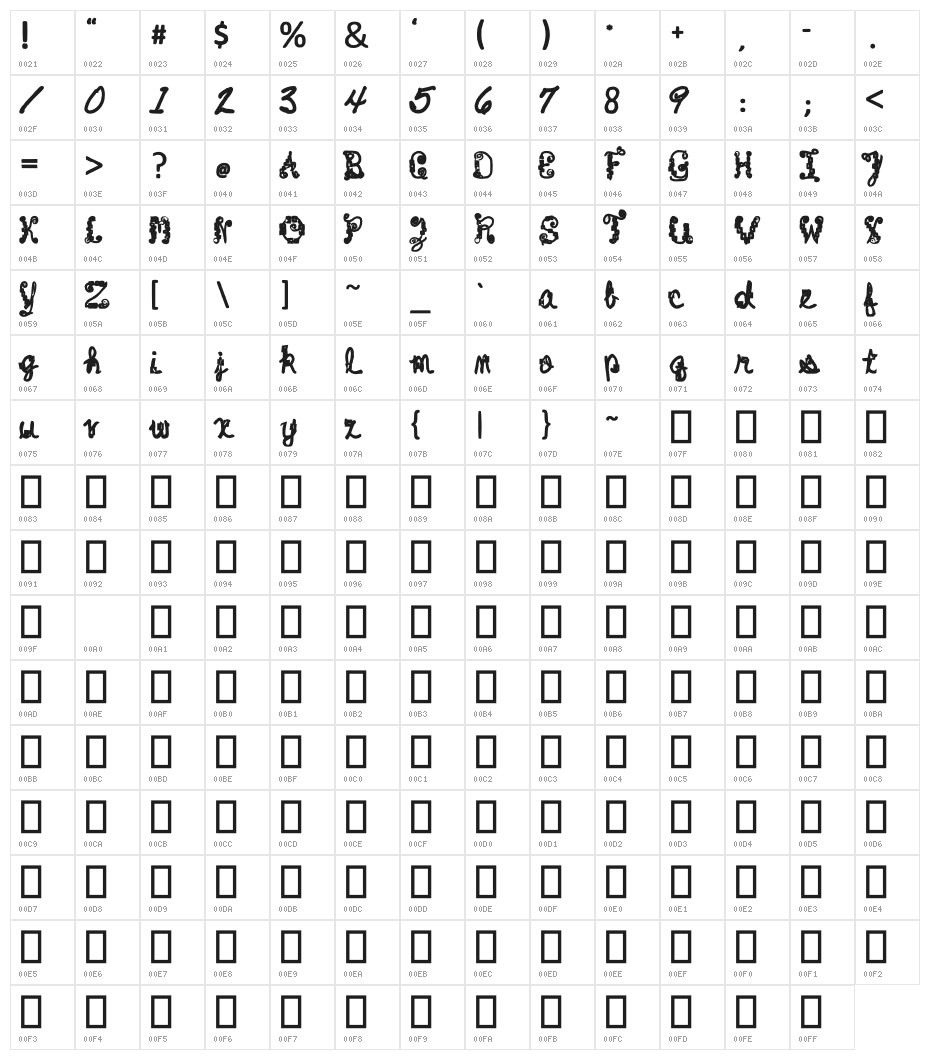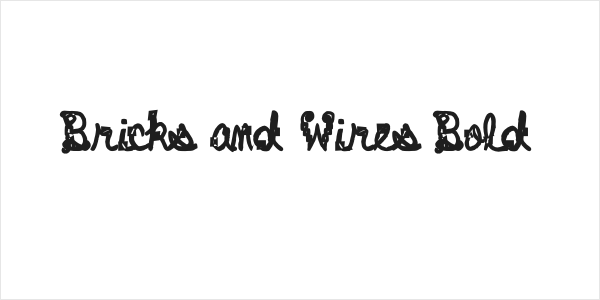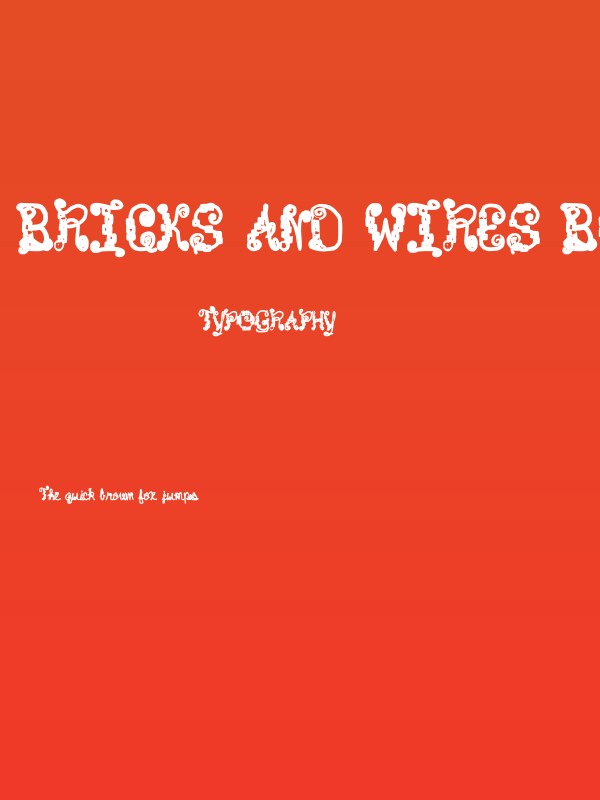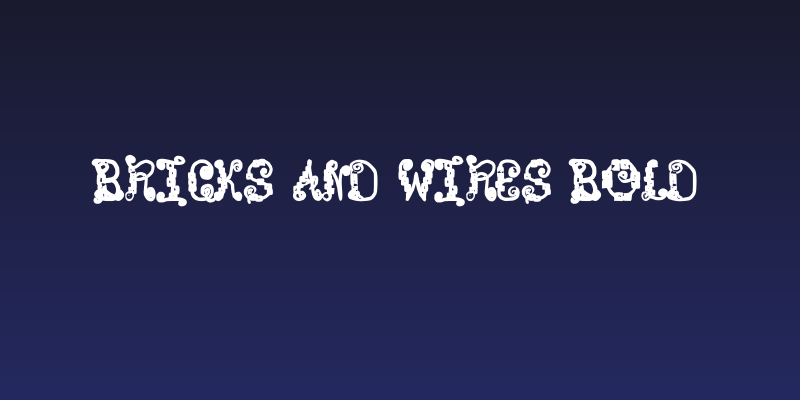
Bricks and Wires Bold Font
Bricks and Wires Bold Description
This font features a highly decorative and whimsical style, characterized by intricate swirls and loops that resemble wires or vines entwined around the letters. The uppercase letters are bold and ornate, with each character having unique embellishments that add a playful and artistic flair. The lowercase letters maintain a similar decorative style but are slightly more subdued, allowing for better readability. The numbers and special characters follow the same ornate theme, making the font cohesive and visually engaging. The overall appearance is bold and eye-catching, suitable for creative and artistic projects.
Use CaseHeadlines, Logos, Artistic designs
Proposed ProjectsIdeal for use in creative projects such as posters, invitations, and branding materials that require a unique and artistic touch.